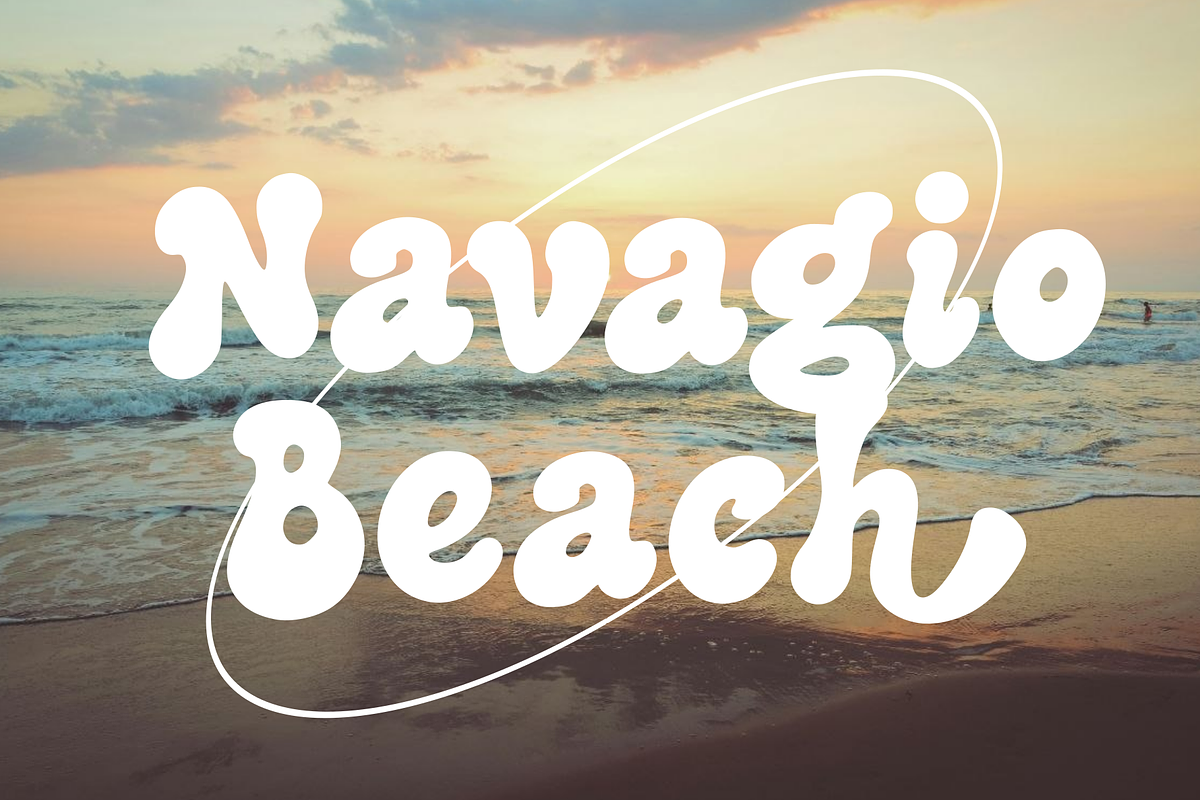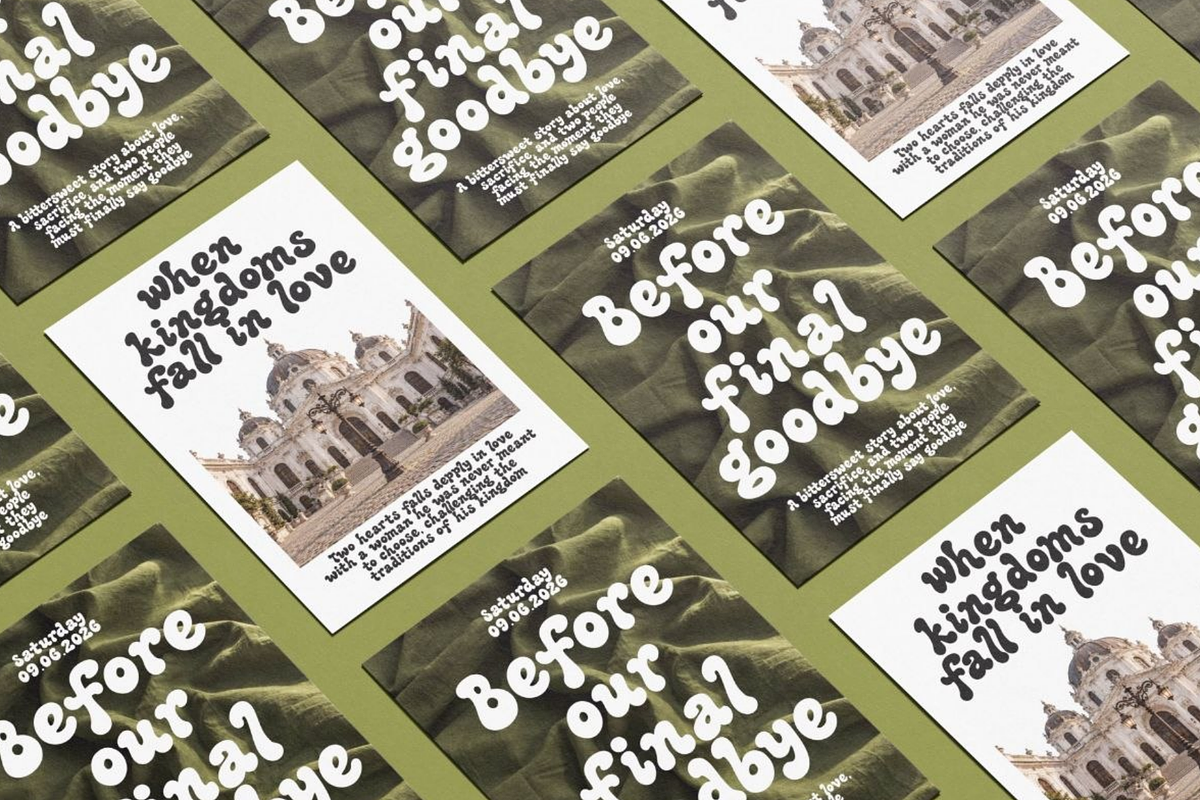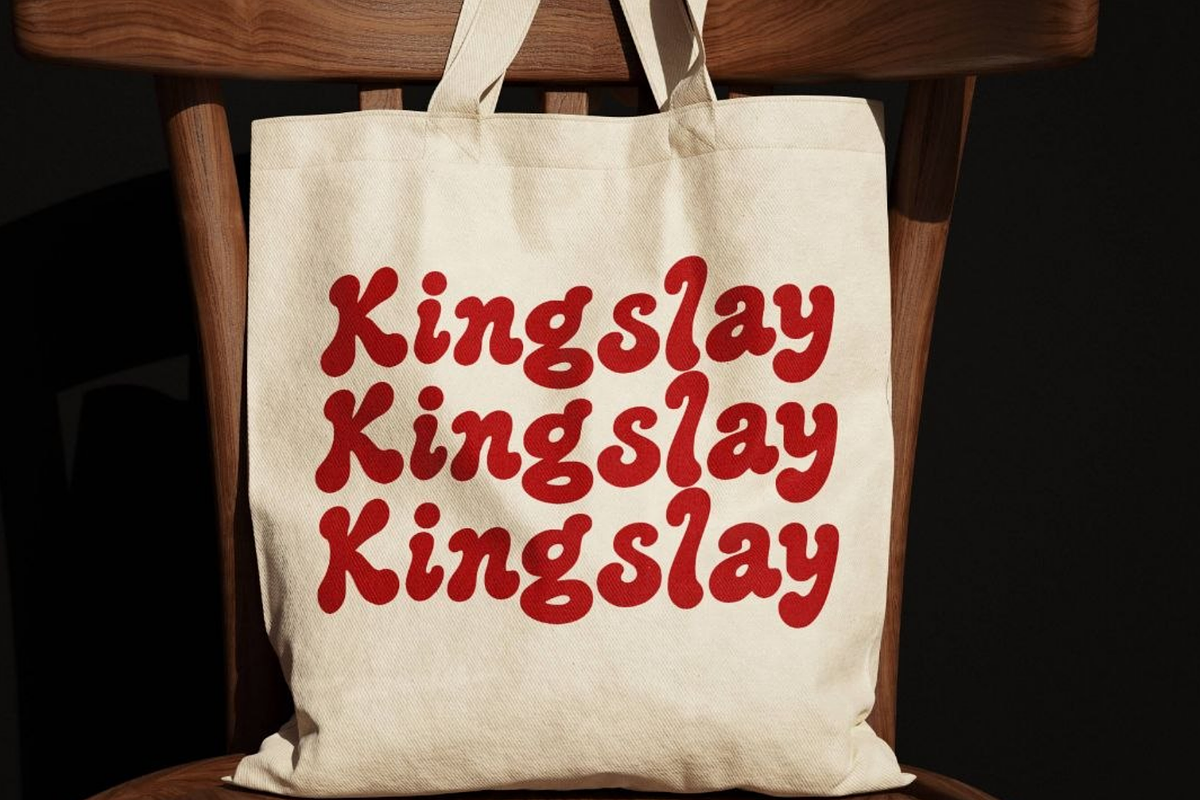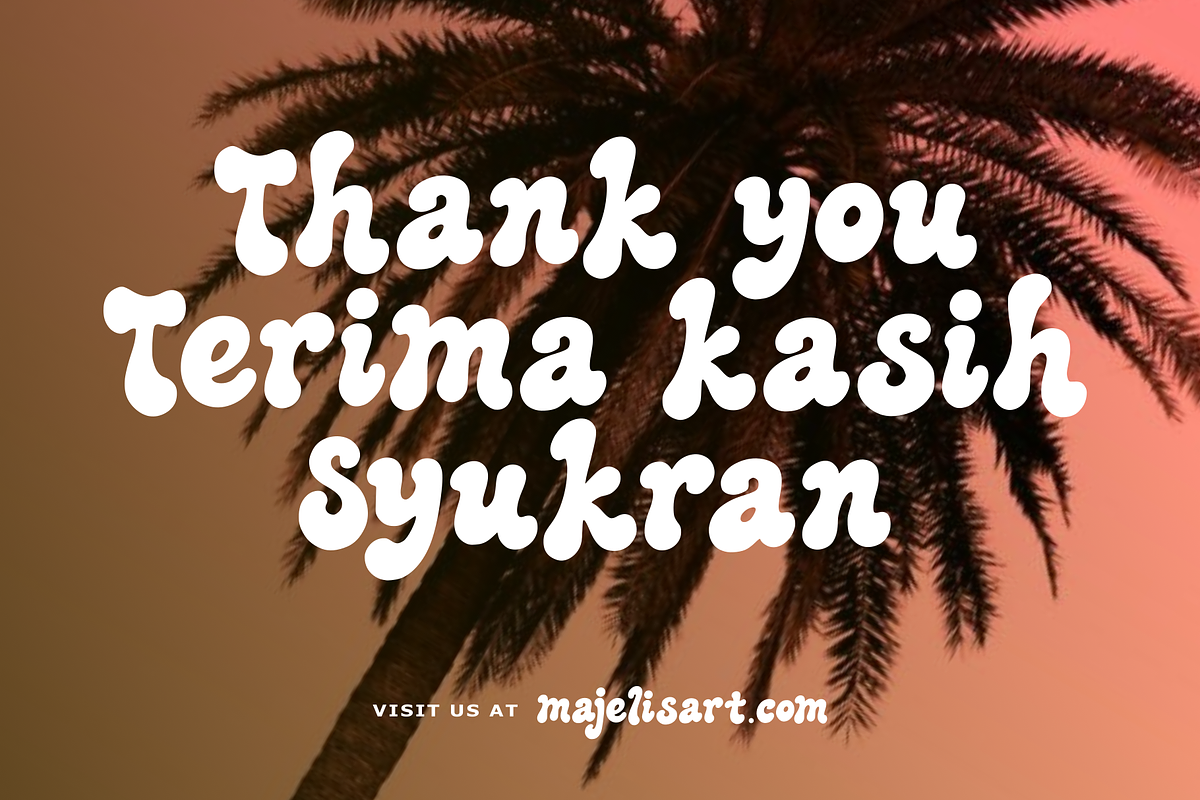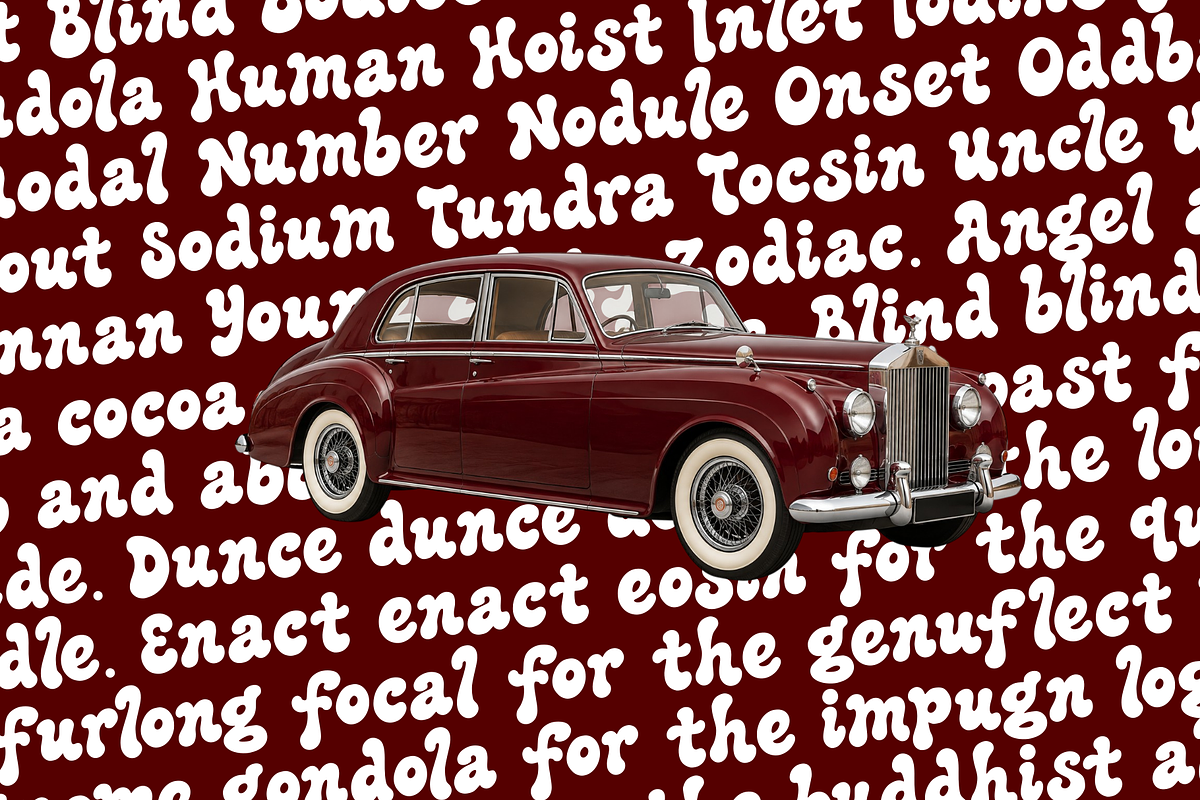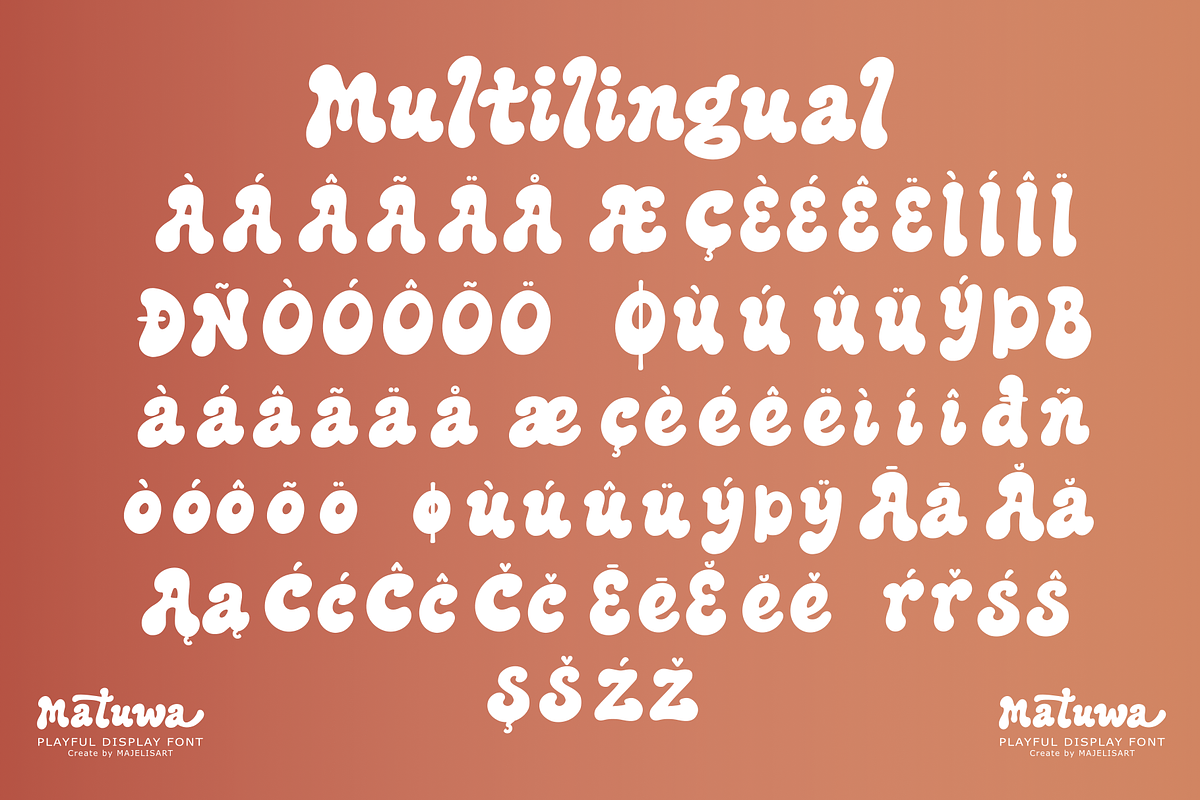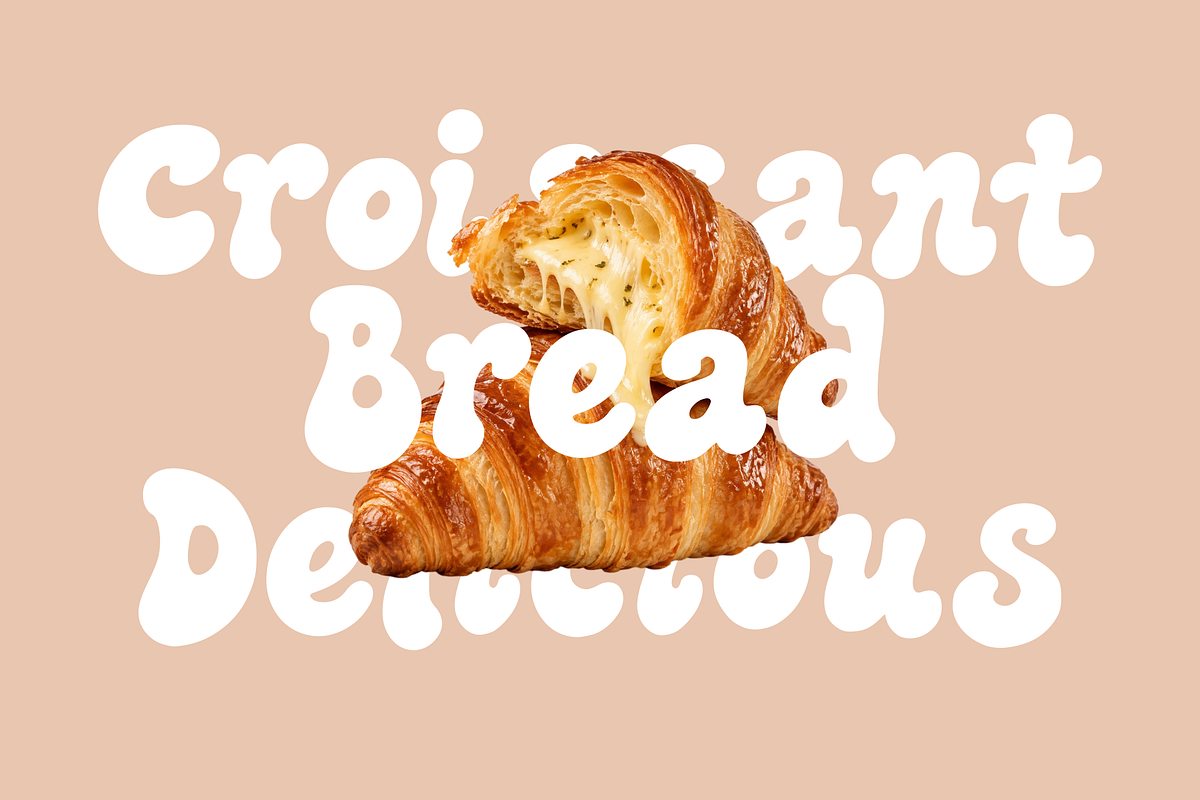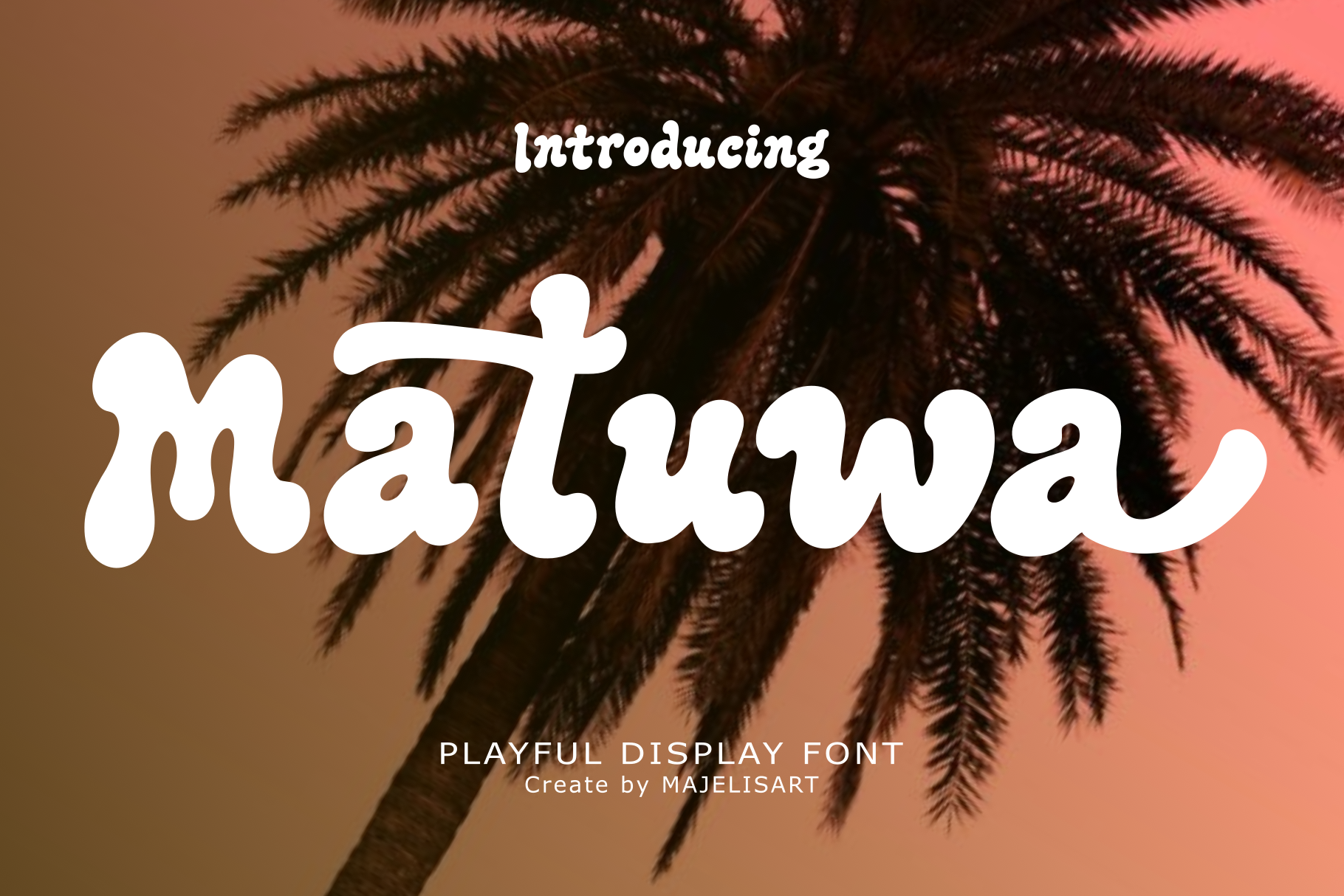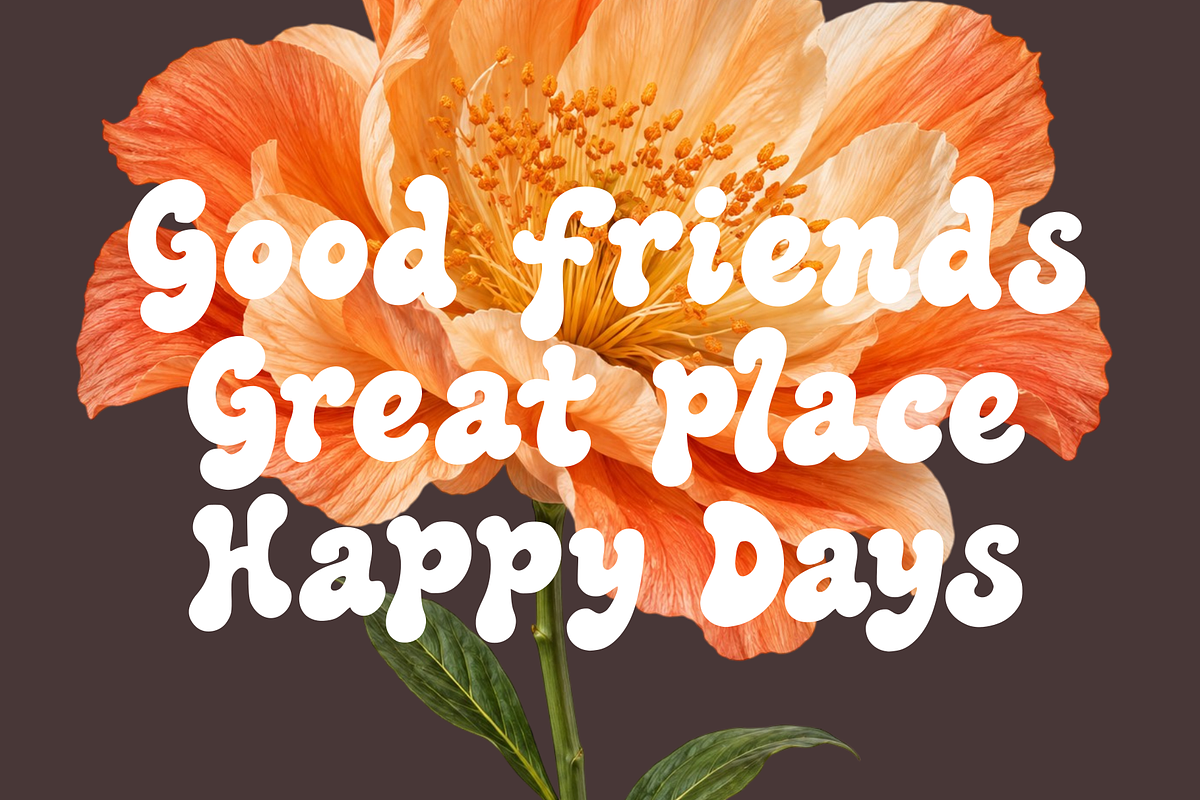
Matuwa - Display font
Matuwa — Playful Display Font
Introducing Matuwa, a fun and expressive Display Typeface with a soft, rounded, and playful personality.
Featuring chunky letterforms, smooth curves, rounded terminals, and quirky details, Matuwa creates a cheerful and friendly visual style. Its bold yet soft appearance makes it perfect for designs that need a cute, youthful, fun, and eye-catching touch.
Logo & branding Children’s designs Posters & flyers T-shirts & apparel Stickers & merchandise Packaging & product labels Food & beverage branding Social media graphics YouTube thumbnails Party & event designs Cartoon & comic artwork Headlines & titles Creative advertising Fun & playful projects
Matuwa includes multilingual support for supported Latin-based characters, making it suitable for creative projects intended for an international audience.
Matuwa — Soft shapes, playful character, big personality.